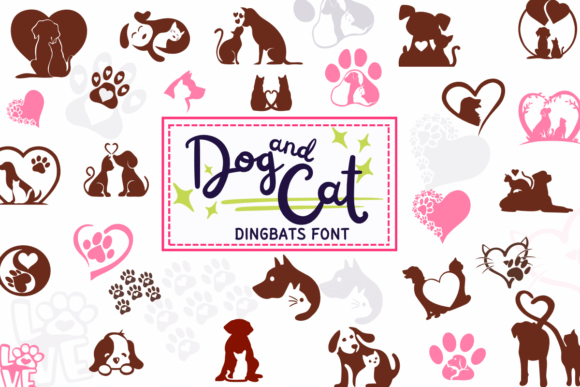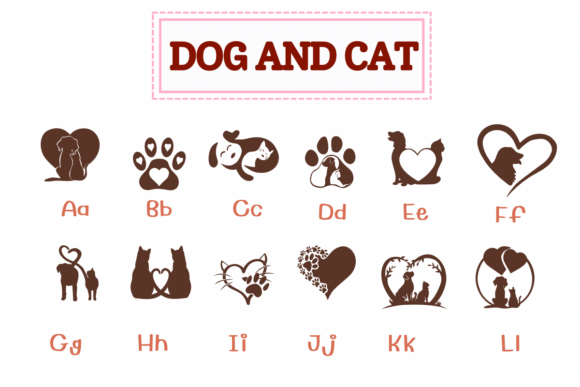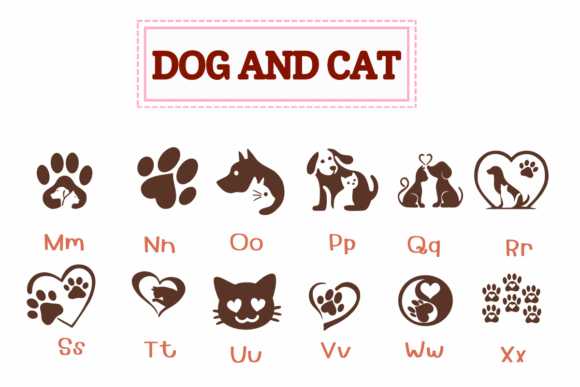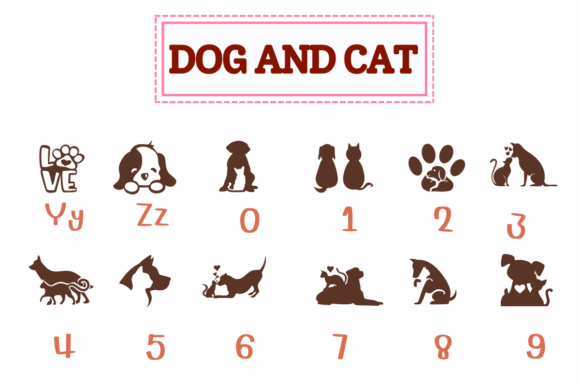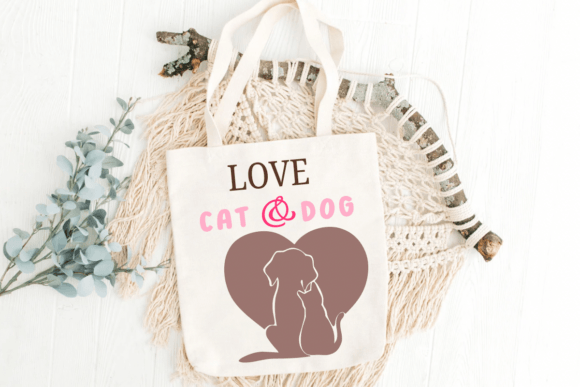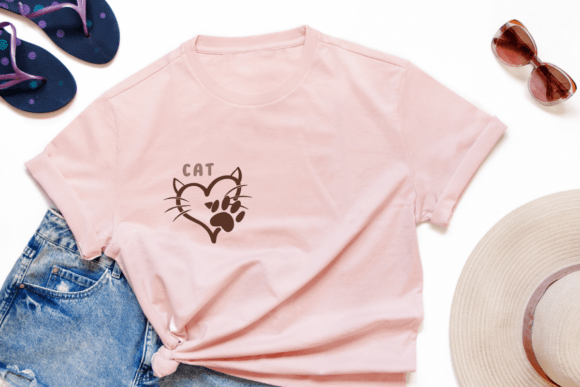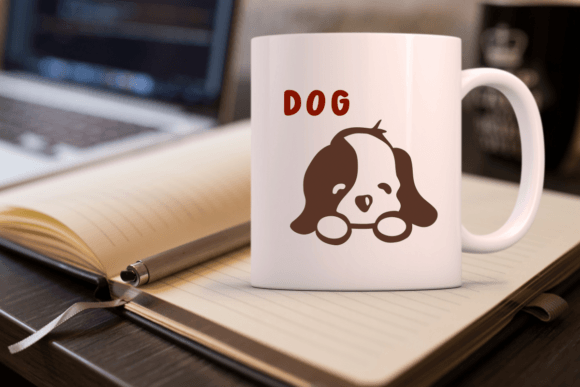
Dog and Cat Font
Dog and Cat is a dingbats font with a cute theme. This font can enhance your creative projects such as wedding invitations, DIY, crafts, decorations, logos, and many other creative ideas.